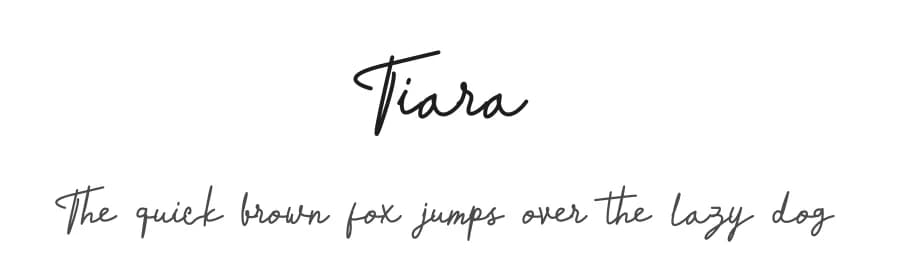
About Tiara Font
This font retains a classy calligraphic influence while feeling contemporary and fresh. This versatility will attract a wide range of creative ideas, from letterheads and titles to stationery.
Tiara Font is a script font that shines as a display or heading face. Pair it with a clean sans-serif or serif font for body text β the contrast creates a clear hierarchy while the two styles stay balanced and easy to read.
Tiara Font